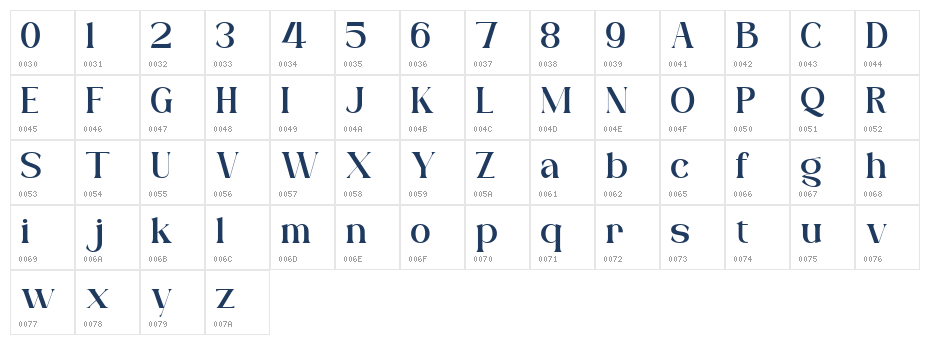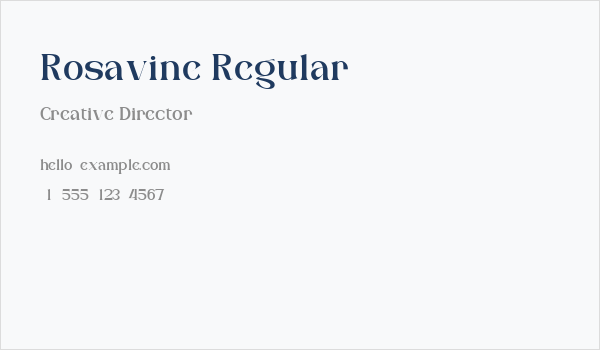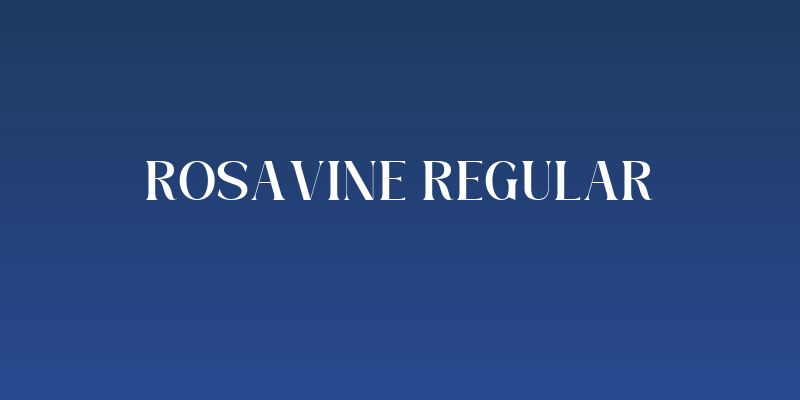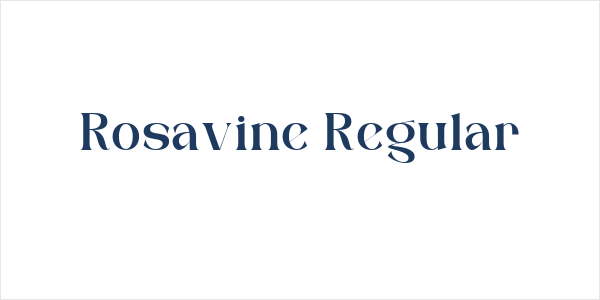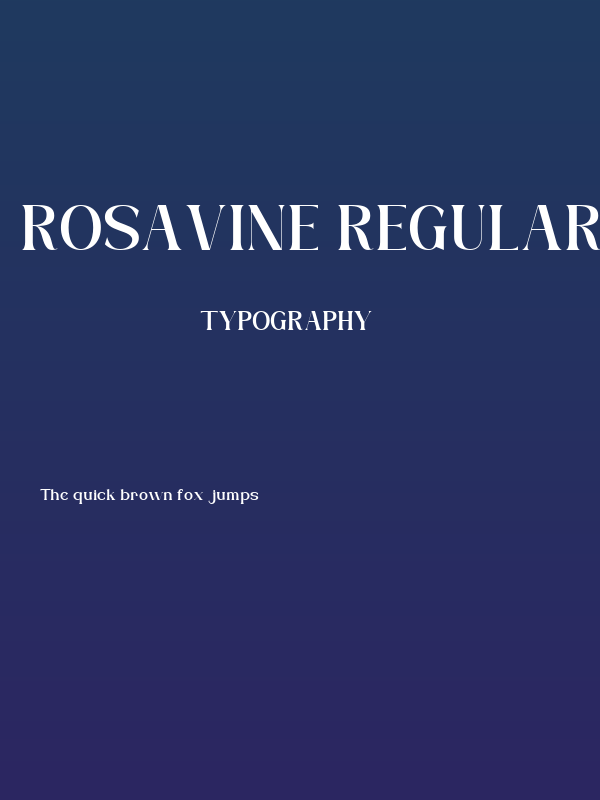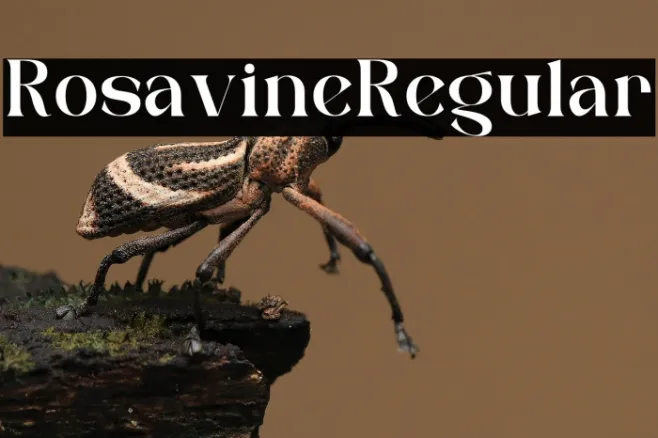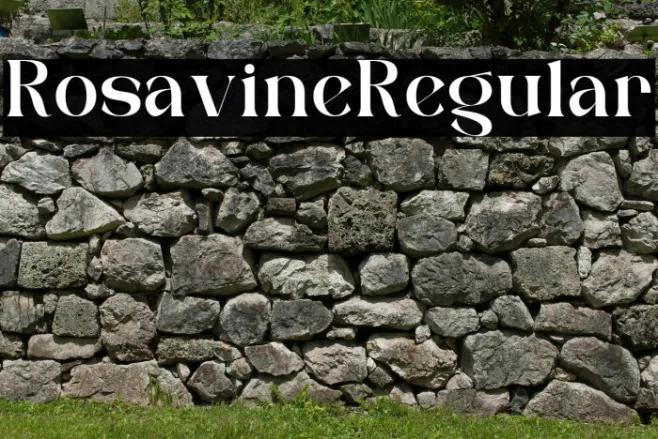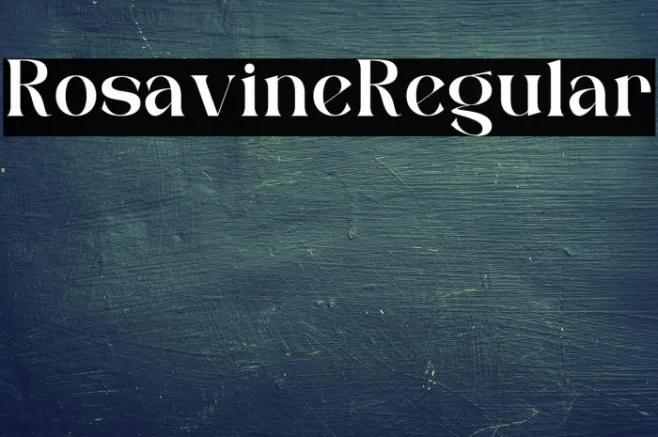
Rosavine Regular Font
Rosavine Regular Description
A serif font with elegant, high-contrast strokes and a refined appearance, featuring both uppercase and lowercase letters, numerals, and punctuation.
| Overall Style | Elegant, Classic, Refined |